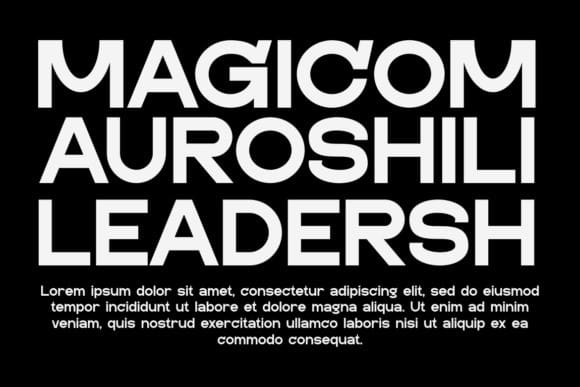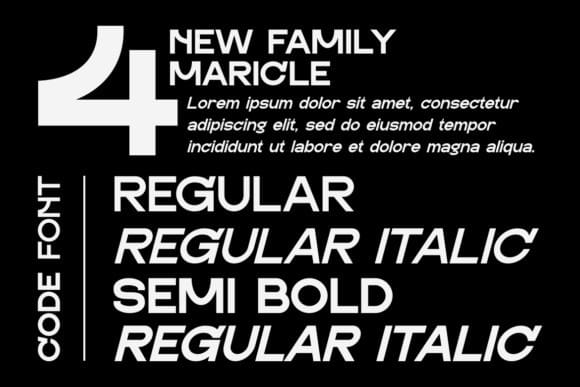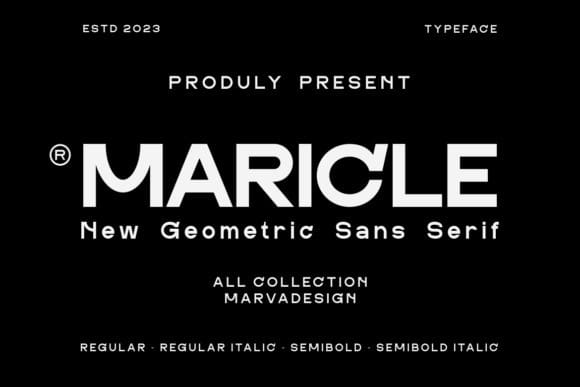
Maricle Font
Maricle Font is a modern sans-serif font that epitomizes clean, sleek design with a touch of sophistication. Its balanced letterforms and minimalistic style create a versatile aesthetic suitable for various projects. Ideal for those seeking a contemporary and polished typeface, Maricle brings a sense of modern elegance to your designs.